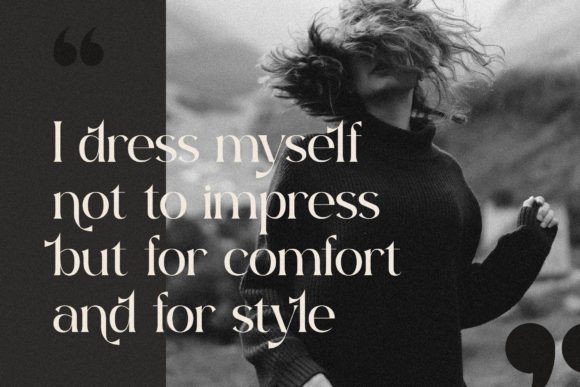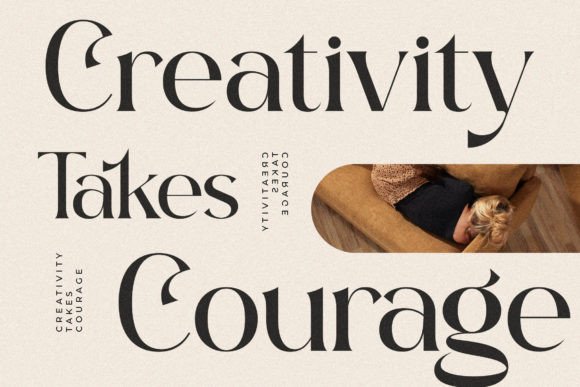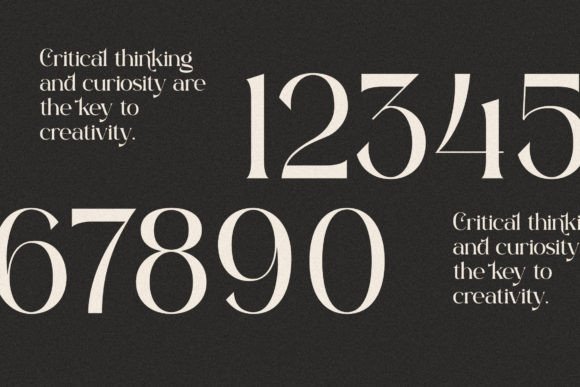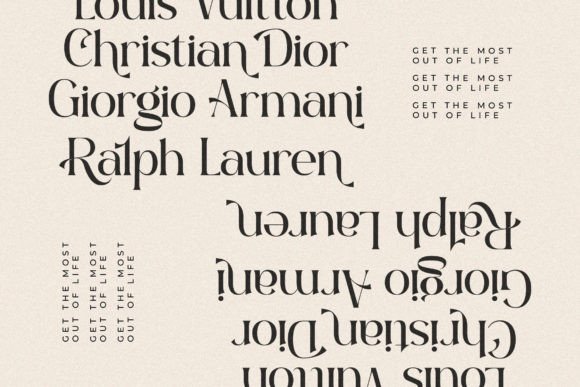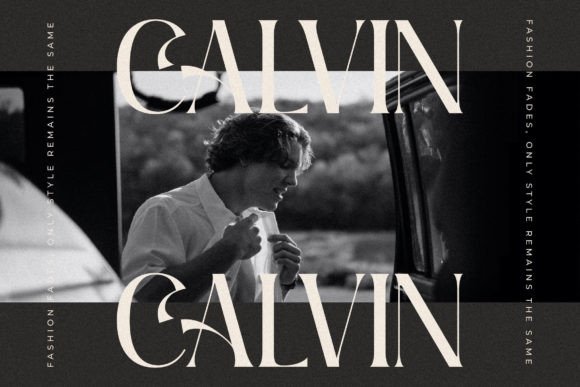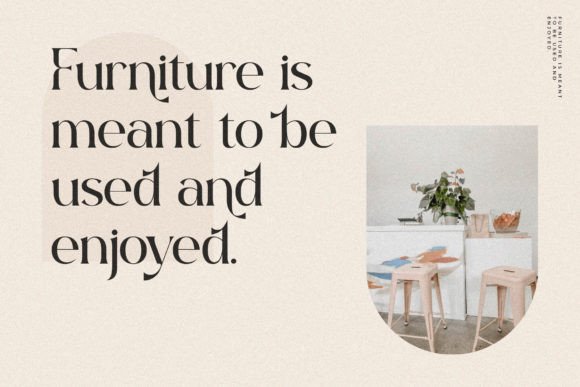
Bilagike Font: Elevate Your Designs with Elegance and Sophistication
In the world of typography, a font can make or break a design. For designers and crafters seeking to add a touch of luxury and elegance to their work, Bilagike Font is an exceptional choice. This modern and classic serif typeface boasts a unique style that effortlessly blends traditional and contemporary elements, making it perfect for a wide range of applications.
What is Bilagike Font?
Bilagike Font is a thoughtfully crafted serif typeface that exudes sophistication and refinement. Its unique design combines the best of both worlds, offering a classic look with a modern twist. This versatility makes it an ideal choice for various design projects, from elegant logos and luxury branding to book and movie titles, fashion brands, magazines, and more.
Key Features of Bilagike Font
- PUA Encoding: Bilagike Font is PUA (Private Use Area) encoded, allowing easy access to all glyphs and swashes. This feature makes it simple to use and customize, giving designers more creative freedom.
- Modern and Classic Serif: The font’s serif design strikes the perfect balance between modernity and classic elegance, making it suitable for a wide range of applications.
- Unique Style: Bilagike Font’s distinctive style sets it apart from other typefaces, ensuring your designs stand out from the crowd.
- Elegant and Luxurious: The font’s sophisticated design makes it perfect for luxury branding, high-end fashion, and other applications where elegance is paramount.
Use Cases for Bilagike Font
Bilagike Font’s versatility makes it suitable for a variety of design projects, including:
- Elegant Logos: Create stunning logos for luxury brands, fashion labels, or high-end services.
- Book and Movie Titles: Add a touch of sophistication to book covers, movie posters, or film titles.
- Fashion Brands: Elevate fashion brand identities with a font that exudes style and luxury.
- Magazines and Publications: Use Bilagike Font to add a touch of elegance to magazine covers, articles, or editorials.
- Clothes and Accessories: Create eye-catching labels, packaging, or advertising materials for clothing and accessories.
- Lettering and Quotes: Use the font to create beautiful lettering pieces or inspirational quotes.
Why Choose Bilagike Font?
With so many fonts available, why choose Bilagike Font? Here are a few compelling reasons:
- Unique Design: Bilagike Font’s distinctive style ensures your designs will stand out from the crowd.
- High-Quality: The font is crafted with attention to detail, ensuring a high level of quality and consistency.
- Easy to Use: PUA encoding makes it simple to access and use the font’s glyphs and swashes.
- Versatile: Bilagike Font can be used for a wide range of applications, from elegant logos to fashion branding.
Bilagike Font is an exceptional choice for designers and crafters seeking to add a touch of elegance and sophistication to their work. With its unique style, modern and classic serif design, and PUA encoding, this font is perfect for a wide range of applications. Whether you’re creating elegant logos, luxury branding, or beautiful lettering pieces, Bilagike Font is sure to elevate your designs to the next level.